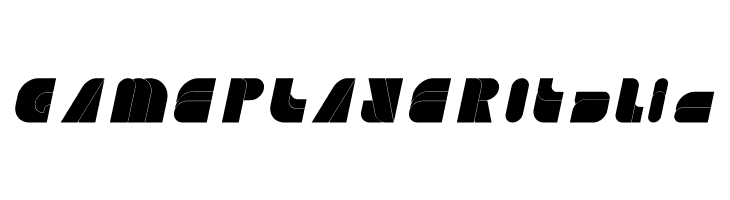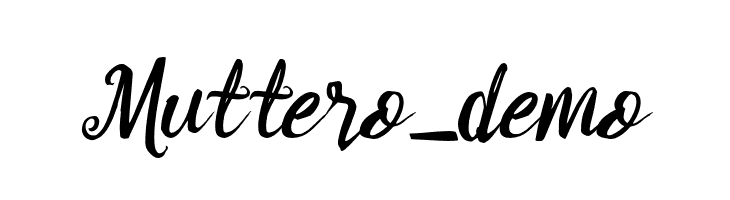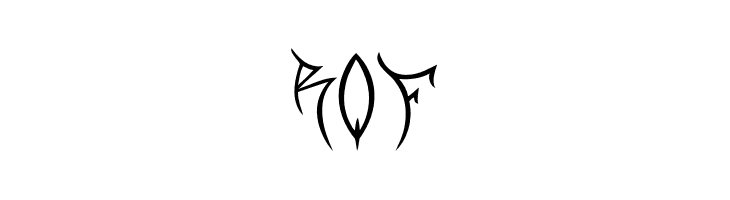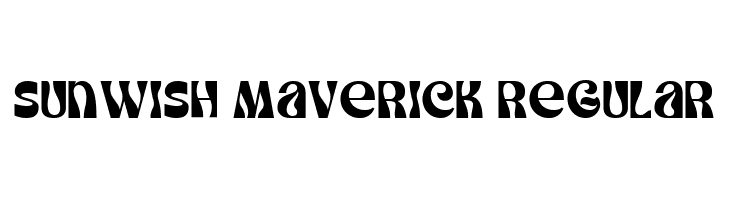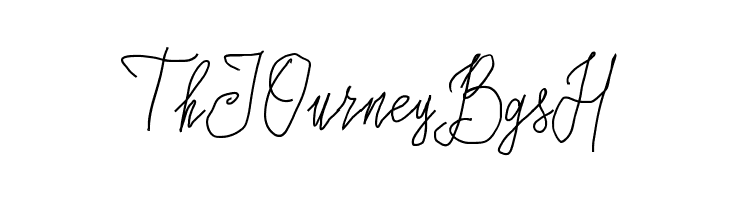
A decorative font with sharp, angular lines and pointed serifs, exuding energy and movement.
A bold, geometric font with dynamic shapes and strong visual impact.
A bold, 3D block font with shadow effects for dramatic impact.
A bold, wavy, and italicized font with a dynamic and energetic style.
A modern, semi-bold italic font with sleek curves and sharp edges.
A dynamic, italic handwritten font with medium contrast and elegant flow.
A bold, pixelated font with a retro, digital style.
A bold, geometric font with a blocky, modern design.
A graceful and sophisticated script font with flowing, interconnected letters.
A lively and expressive handwritten font with dynamic strokes and playful loops.